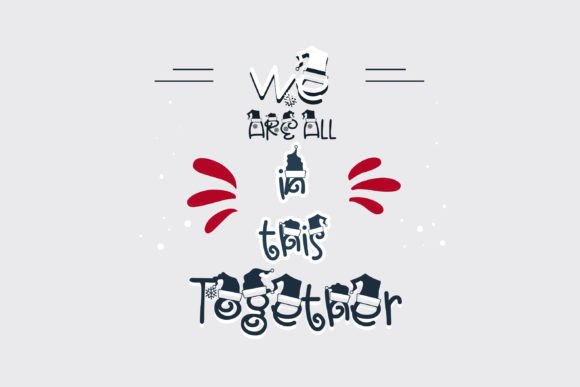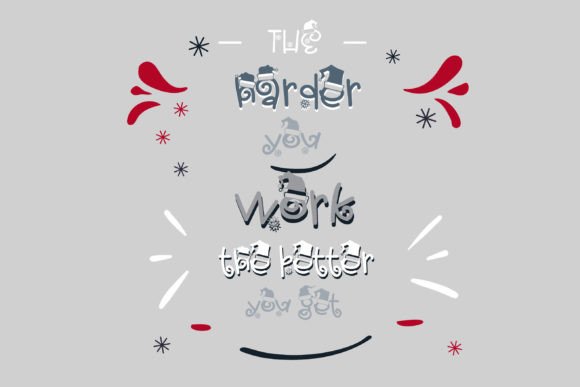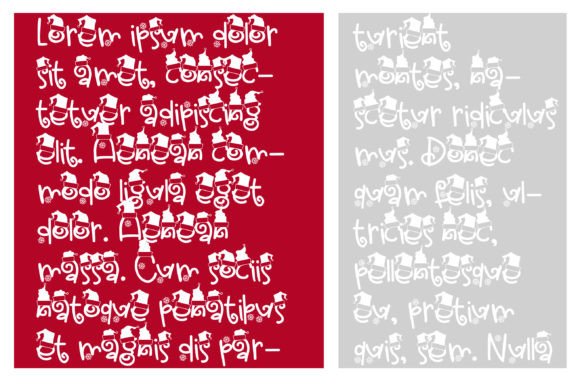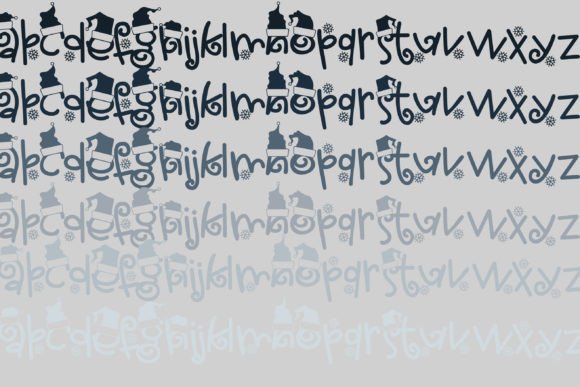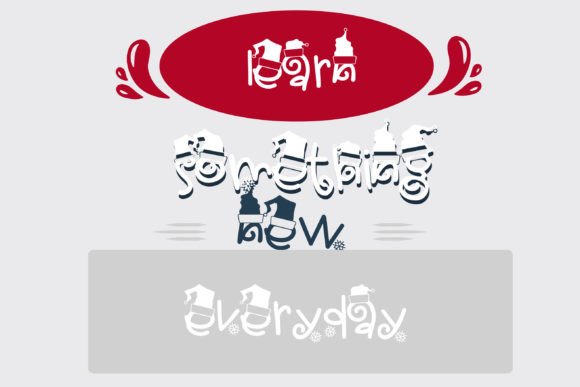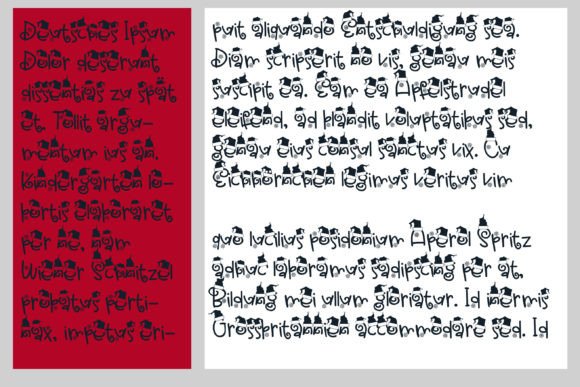
The Perfect Font for a Festive Touch
It’s that time of the year when the air is filled with the magic of the season. You’re sipping hot cocoa, decorating the tree, and brainstorming the perfect invitation design for your holiday party. As you scroll through font options, you stumble upon something that makes your heart skip a beat – a hand-crafted sans serif font featuring snowflakes and Santa hats throughout. This delightful font is none other than the Cherry Merry Font, designed to add a touch of whimsy and nostalgia to your designs.
For designers, the Cherry Merry Font is a valuable addition to their toolkit. Its unique blend of playfulness and elegance makes it perfect for creating invitations, greeting cards, and other festive projects. With its hand-crafted feel, this font adds a personal touch that’s sure to impress your clients and recipients alike.
- Font Family: Cherry Merry Font, a unique and playful script font
- Unique Characteristics: Features a hand-drawn, cursive design with intricate flourishes and subtle texture, perfect for adding a touch of whimsy to designs
Cherry Merry Font Review
Overall, I found the Cherry Merry Font to be a charming and playful addition to any design project. ✨ Its whimsical feel and rounded edges make it perfect for creating a festive atmosphere, especially during the holiday season. The font is also highly customizable, allowing designers to easily adjust the size, color, and style to fit their needs.
One of the standout features of the Cherry Merry Font is its wide range of glyphs, including various punctuation marks and special characters. This makes it a great choice for designers who need to create custom holiday messages or graphics.
- ✨ Whimsical and playful feel
- ✨ Highly customizable
- ✨ Wide range of glyphs
Limitsations:
- ⚠️ Limited legibility at small font sizes
- ⚠️ May not be suitable for formal or professional designs
- ⚠️ Some users may find the font too cutesy or overused
Overall, I would recommend the Cherry Merry Font to designers looking to add a touch of holiday cheer to their projects. While it may have some limitations, its unique charm and versatility make it a great choice for the right design.
The Cherry Merry Font is ideal for creating festive and playful designs. Use it for:
– Holiday greeting cards and invitations
– Christmas or New Year’s party decorations
– Social media graphics and posts
– Children’s birthday party invitations and decorations
– Any design that requires a cheerful and whimsical touch